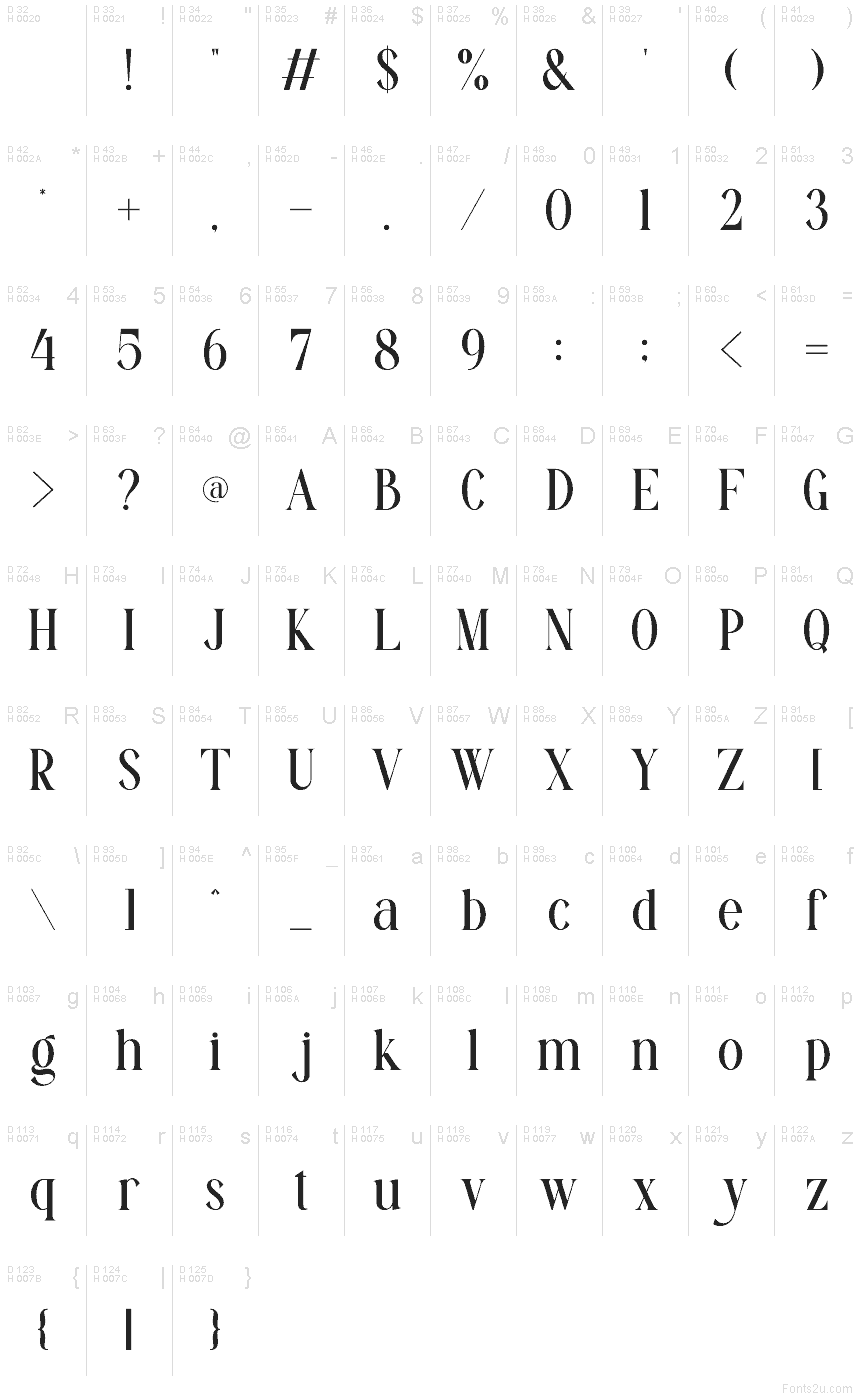
Flavoe
Flavoe font by ErmediaStudio is a free high-contrast serif font. It stands out with glossy, inky thick strokes that snap into hairline transitions, plus crisp wedge serifs that feel almost knife-cut. The rhythm is dramatic but balanced—wide bowls meet tight joins—so headlines look luxurious without collapsing at smaller display sizes.
Using Flavoe, you get fashion-label poise for editorial mastheads, luxury packaging, beauty campaigns, event posters, hero banners, and book covers. This free font brings a couture vibe that reads confidently at large sizes and still sparkles on subheads. Pair it with a quiet, neutral grotesk sans for body copy, and give Flavoe generous letterspacing to let those razor-fine details breathe.